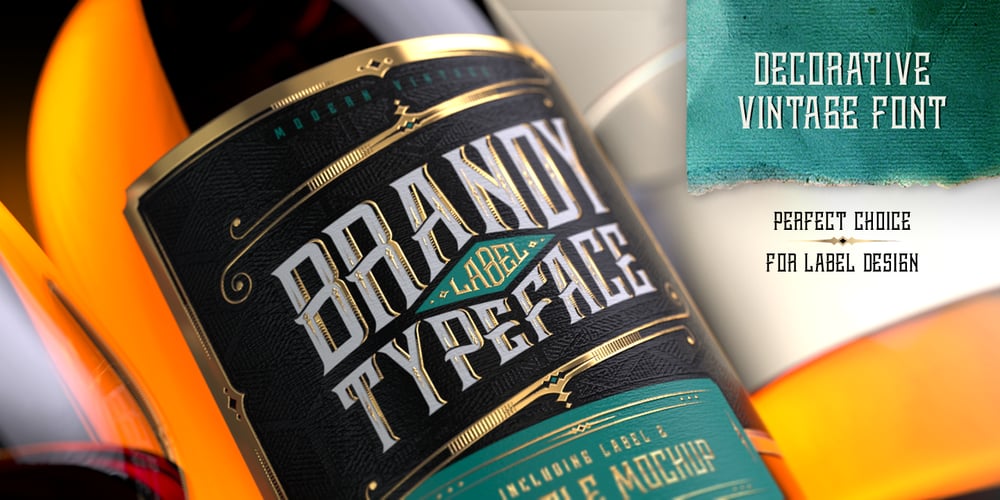
Brandy Label Font Family was designed by Gleb Guralnyk and published by Gleb Guralnyk. Brandy Label contains 4 styles and family package options. Introducing a font, named «Brandy label». This is a set from four font layers that allows you to combine different elements of character with different fill. It’s perfect for making some alcohol label designs.